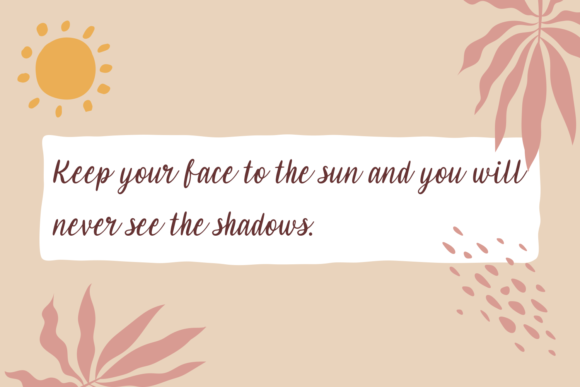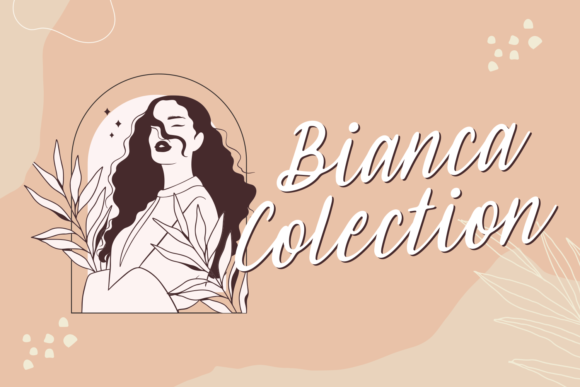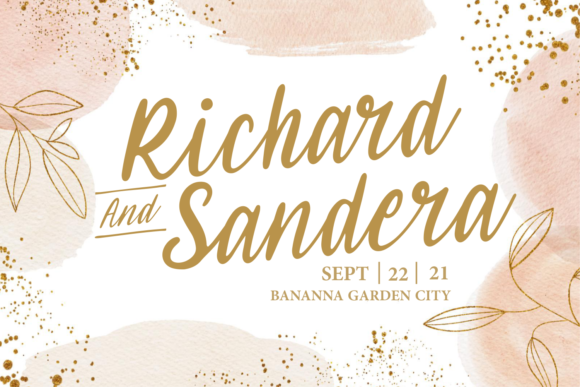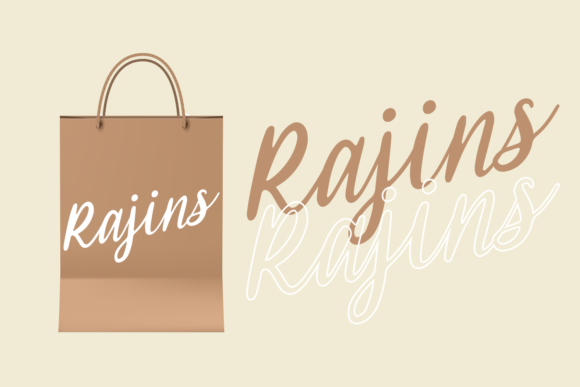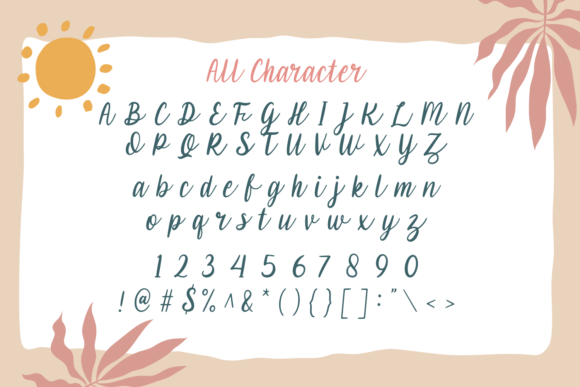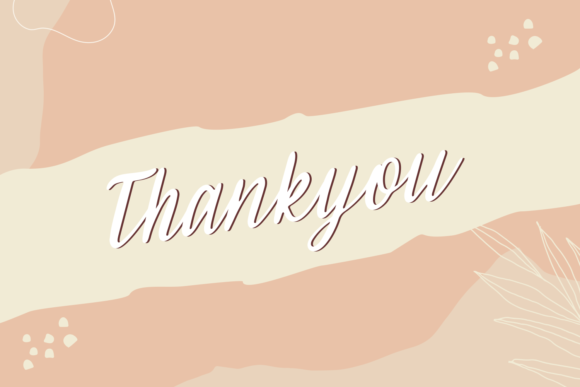
Discover the Elegance of Grey Shadow Font: Elevate Your Designs with a Touch of Sophistication
Are you on the hunt for a font that exudes elegance, sophistication, and a dash of modern flair? Look no further than the Grey Shadow Font. This beautifully crafted handwritten font is designed to capture the essence of classy calligraphy while maintaining a fresh and contemporary feel. In this article, we’ll dive into the world of Grey Shadow, exploring its unique features, and how it can elevate your design projects to new heights.
The Essence of Grey Shadow Font
Grey Shadow is a well-balanced handwritten font, masterfully designed to become a true favorite among designers and crafters alike. Its creator has meticulously crafted each letter to ensure a harmonious blend of traditional calligraphic influences with a modern twist. The result is a font that feels both timeless and cutting-edge, perfect for a wide range of design applications.
Key Features of Grey Shadow Font
- Classy Calligraphic Influences: Grey Shadow’s roots in traditional calligraphy are evident in its fluid strokes and elegant letterforms. Each character is designed to evoke a sense of luxury and refinement.
- Contemporary and Fresh: Despite its classic undertones, Grey Shadow has a distinctly modern feel. Its clean lines and balanced proportions make it perfect for designs that require a touch of sophistication without feeling too ornate.
- Versatility: Whether you’re working on a branding project, packaging design, or a digital platform, Grey Shadow adapts seamlessly. Its versatility makes it an excellent choice for various design applications.
- Legibility: One of the standout features of Grey Shadow is its exceptional legibility. Even at smaller sizes, the font remains clear and easy to read, making it ideal for body text and headlines alike.
Who Can Benefit from Grey Shadow Font?
Grey Shadow Font is a valuable addition to any designer’s toolkit, regardless of their specific niche. Here are a few groups that can particularly benefit from this elegant font:
- Graphic Designers: Looking for a font that can add a touch of elegance to branding projects, business cards, or brochures? Grey Shadow is an excellent choice.
- Crafters and Makers: If you’re creating product labels, packaging, or promotional materials for your handmade goods, Grey Shadow can help elevate your brand’s aesthetic.
- Digital Designers: For those working on websites, mobile apps, or digital marketing materials, Grey Shadow’s clean and modern look can enhance user experience and visual appeal.
Tips for Using Grey Shadow Font Effectively
To get the most out of Grey Shadow, consider the following tips:
- Pair with Contrasting Fonts: Combine Grey Shadow with a sans-serif font for body text to create visual interest and hierarchy in your designs.
- Experiment with Colors: While Grey Shadow works beautifully in its namesake color, don’t be afraid to experiment with different hues to match your brand’s palette.
- Pay Attention to Scale: Although Grey Shadow is legible at various sizes, be mindful of its scale to ensure it complements your design rather than overpowering it.
Grey Shadow Font is more than just a typeface; it’s a design statement. With its perfect blend of classic calligraphy and modern sensibilities, it offers a unique opportunity to elevate your projects and make them stand out. Whether you’re a seasoned designer or a crafty maker, Grey Shadow is sure to become a favorite in your collection. So why wait? Fall in love with Grey Shadow and bring your designs to the highest levels of sophistication and elegance.